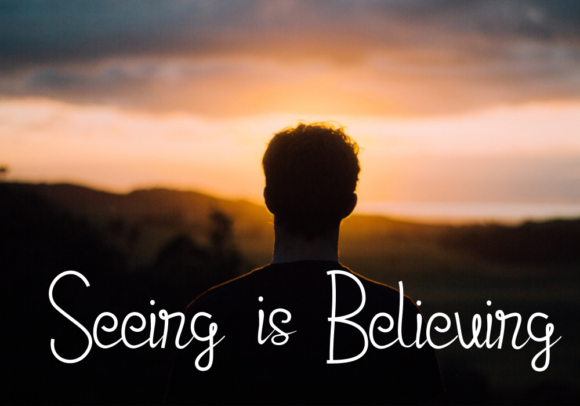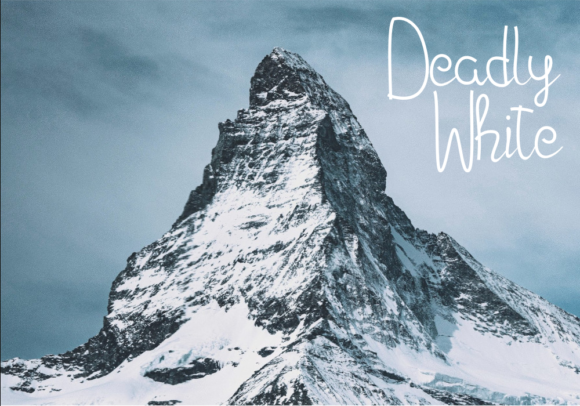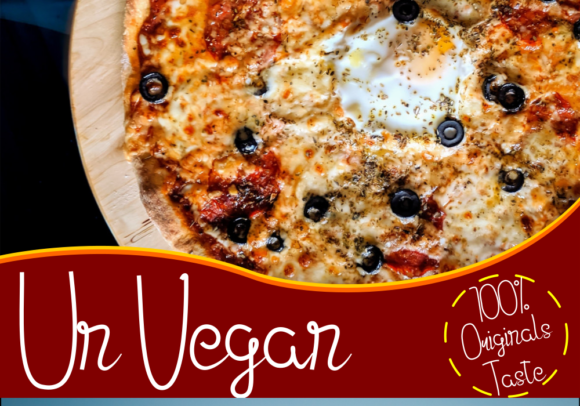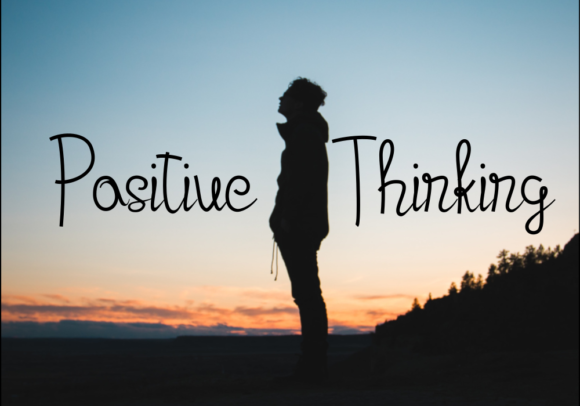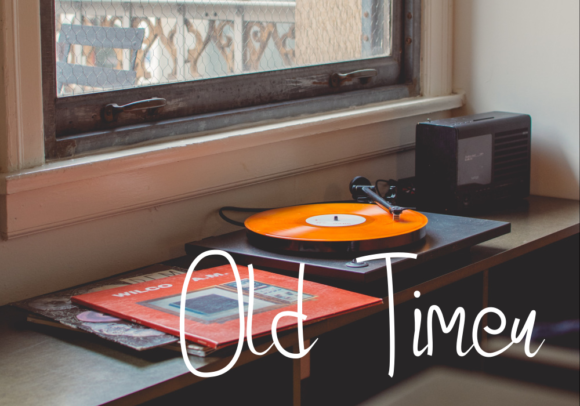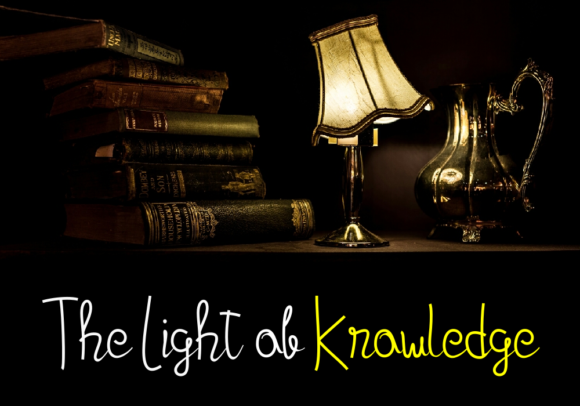
Introduction to Shambellyn Font
Shambellyn is a cute and simple lettered handwritten font that can be used for all chalkboard quotes or teaching material.
Its authentic look will add a personal and realistic feel to your designs .